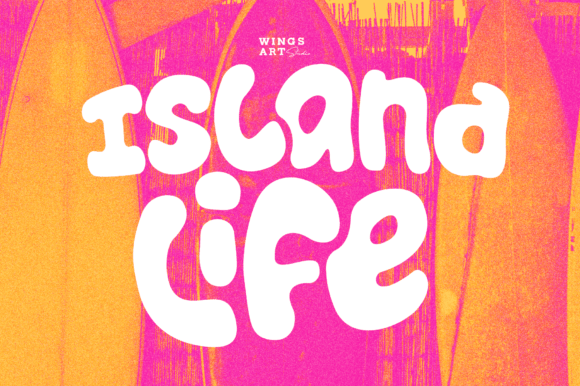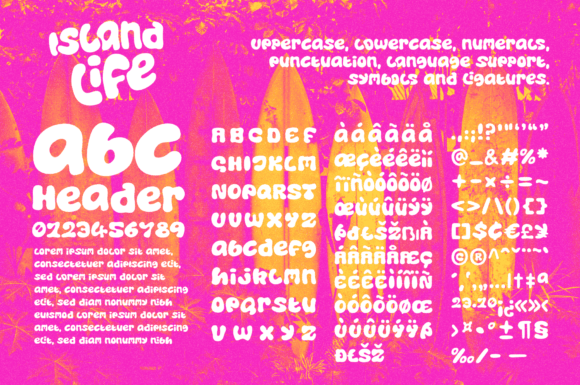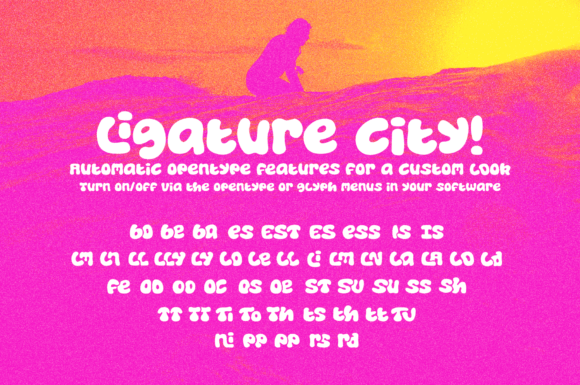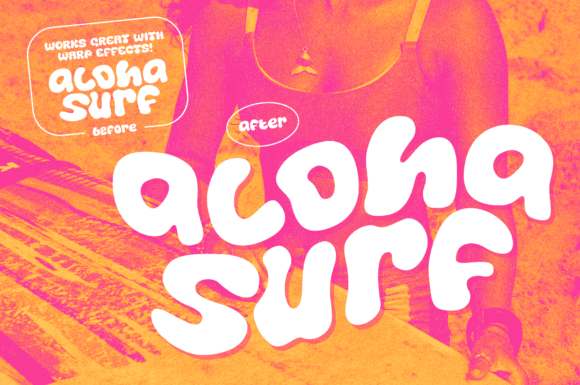
Island Life Font: A Retro Display Font for Summer & Surf Designs
About the Island Life Font
Make a bold statement with Island Life Font, a powerful and memorable font. Island Life is a font often found on lo-fi surf movie posters, t-shirts and decals, it’s an aesthetic that promotes a laid-back, summer loving style.
It’s the perfect font for the summer season and works great across posters, logos, t-shirts, menus and more. I recommend first laying out your text and then experimenting with warp, wave and bulge effects for some excellent results. Check out the visuals to see it in action. Enjoy!
Island Life’s relaxed, slightly distressed aesthetic makes it ideal for projects evoking a carefree, summery vibe. It excels in headlines, logos, short-form text on packaging, and posters. Avoid using it for body copy or lengthy text; its unique character is better suited to impactful statements than large blocks of text.
The font’s playful personality pairs well with clean sans-serif fonts like Montserrat for a balanced contrast, or a more geometric sans-serif such as Futura for a modern feel. For a touch of elegance, consider pairing it with a script font like Pacifico, but use it sparingly to avoid overwhelming the Island Life’s distinct style.
Island Life’s overall personality is best described as casual, friendly, and adventurous. Brands focused on outdoor activities, surf culture, or summer-related products will find it particularly effective.
Island Life Font Usage Examples